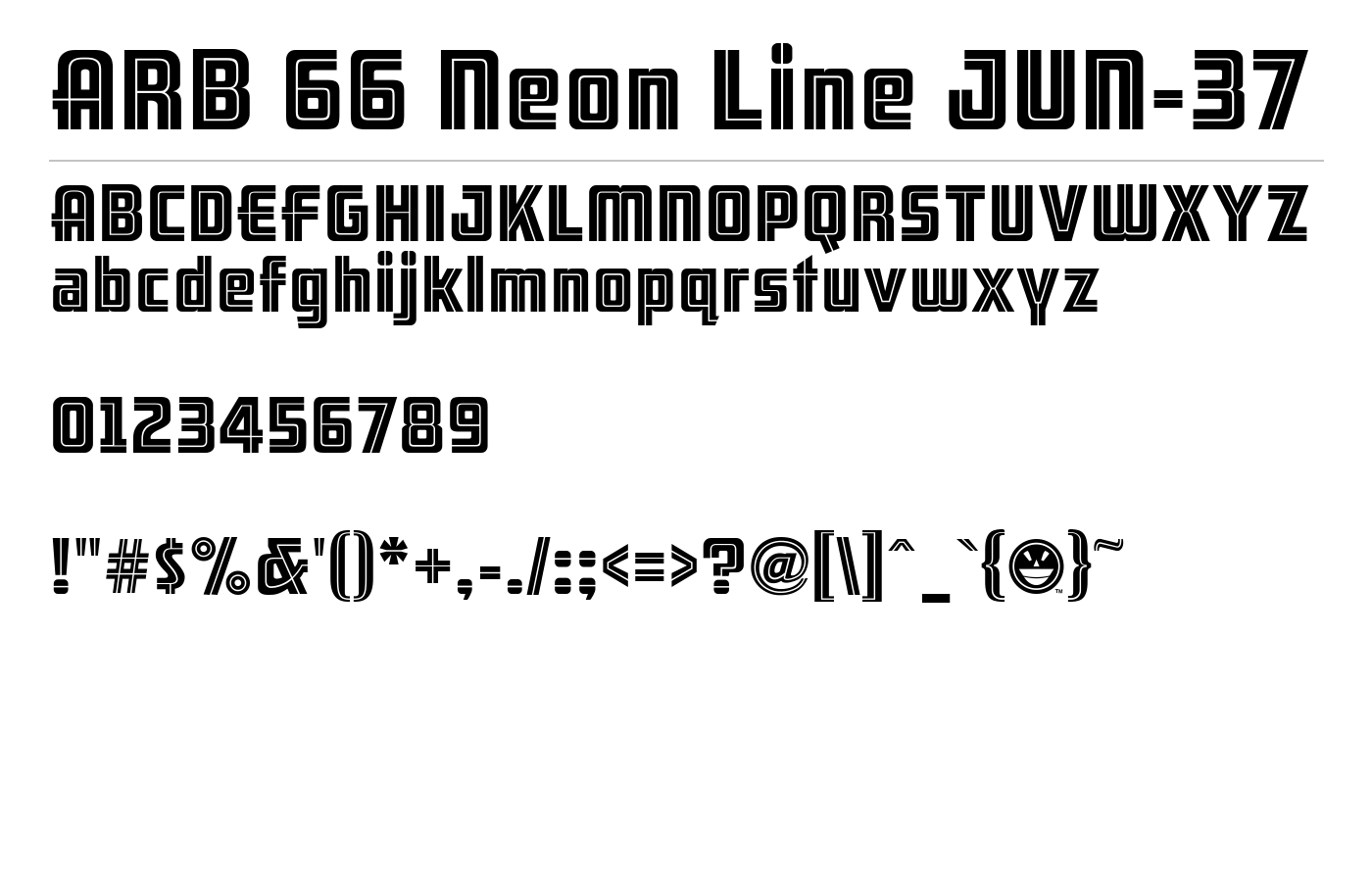
ARB 66 Neon Line JUN-37 is a bold, condensed sans serif font with a modern, geometric style reminiscent of neon signage. Its distinctive double-line strokes create a striking visual impact, making it perfect for eye-catching headlines, logos, and signage that need a retro-futuristic or industrial vibe. This font works best in display settings where unique, attention-grabbing typography is essential.
ARB 66 Neon Line JUN-37 Font
About ARB 66 Neon Line JUN-37 Font